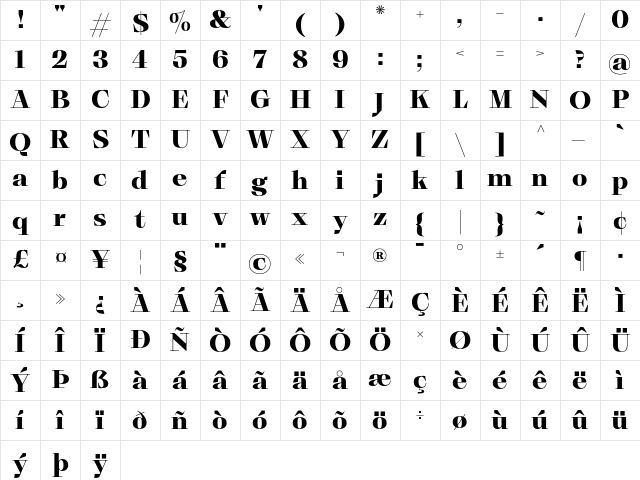
Complete Grafier Black Display Regular glyph index. Displaying only characters natively supported by Grafier Black Display Regular font.
Grafier Black Display is built around its visual character rather than neutral utility - its distinctive forms are designed to make an impression at display sizes.
Font Pairing: Pair with a clean neutral sans-serif for body copy to let Grafier Black Display's character lead without overwhelming the composition.
Pro Tip: Use Grafier Black Display exclusively at display sizes - it was designed to be seen, not read at length. Let a neutral companion handle body copy.